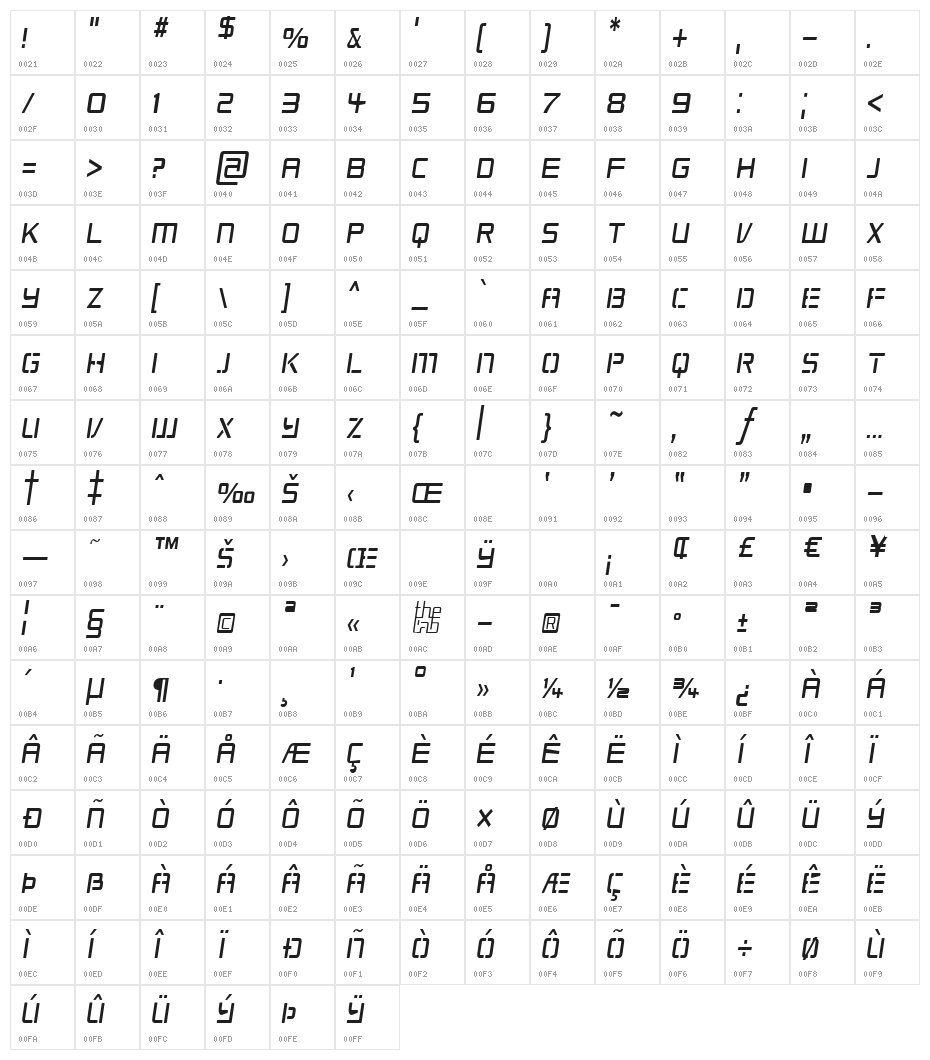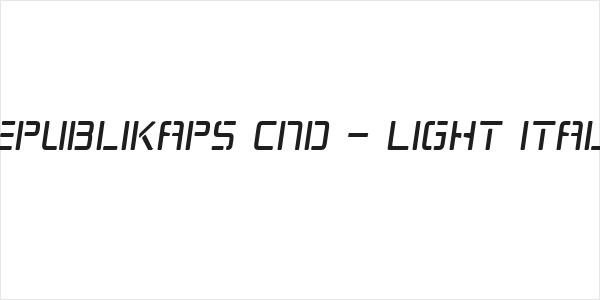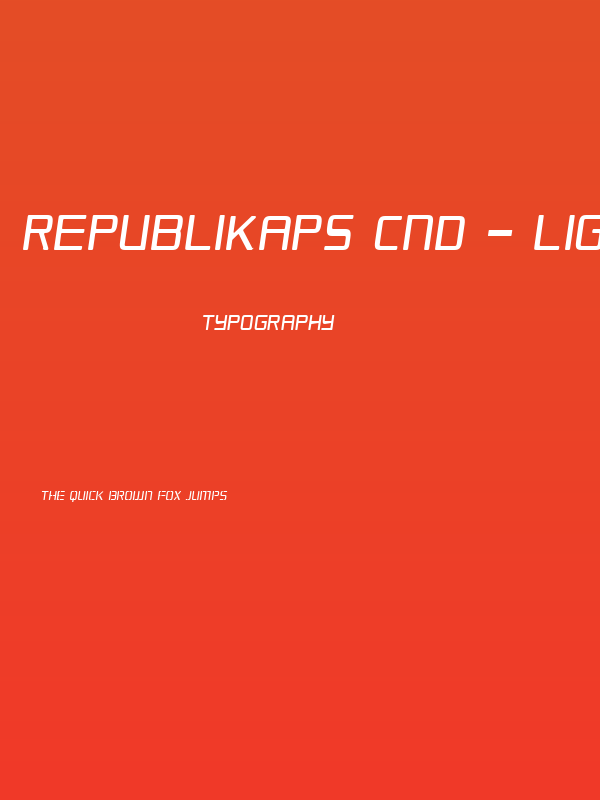
Republikaps Cnd - Light Italic Font
Republikaps Cnd - Light Italic Description
This font features a sleek, modern design with a condensed structure and light weight. The italic style adds a dynamic and forward-leaning appearance, making it suitable for contemporary design projects. The characters are well-defined with a consistent stroke width, providing a clean and professional look. The spacing between characters is tight, enhancing the compact and efficient use of space. The font's geometric shapes and angular lines contribute to its futuristic and technical aesthetic, making it ideal for technology-related applications.
| Use Case | Headlines, Logos, Digital Interfaces |
| Proposed Projects | Ideal for technology branding, modern advertising, digital interfaces, and innovative product packaging. |